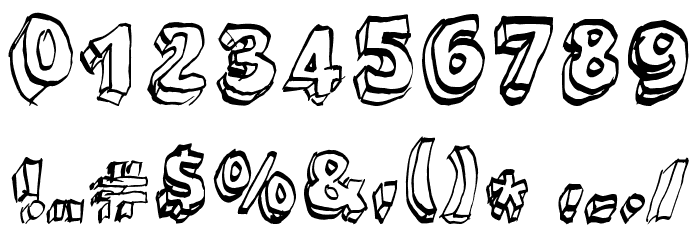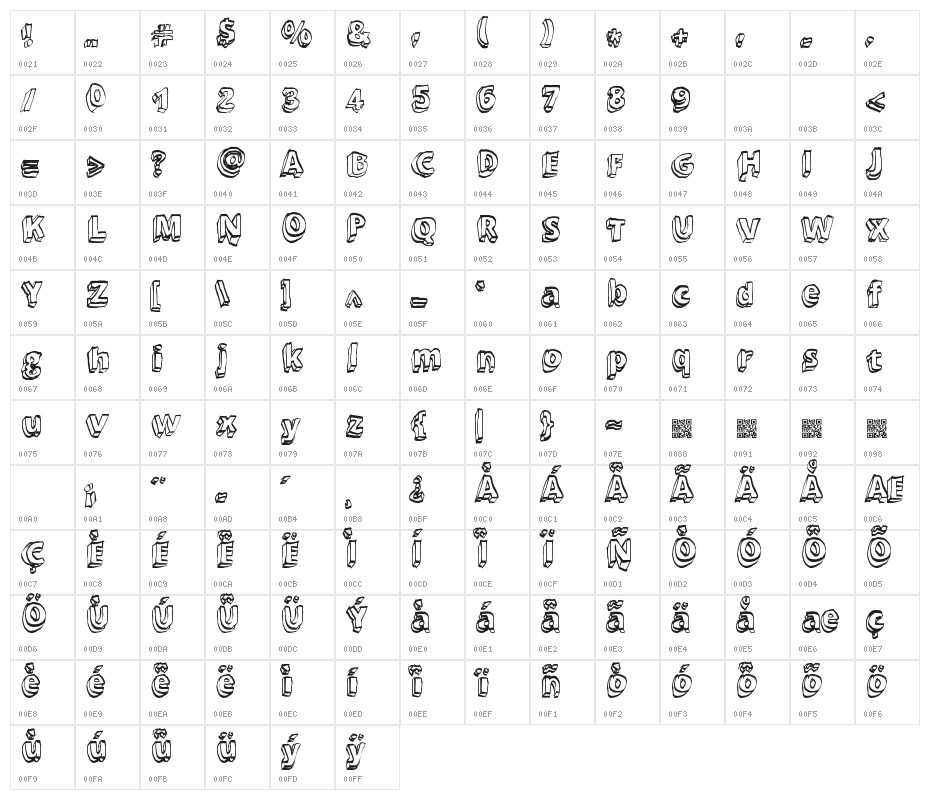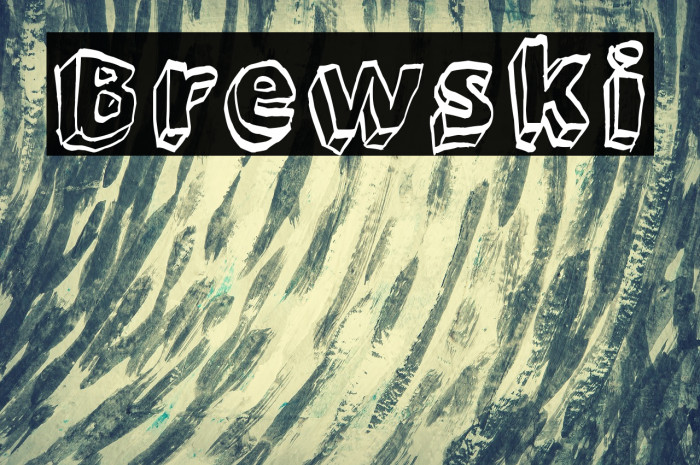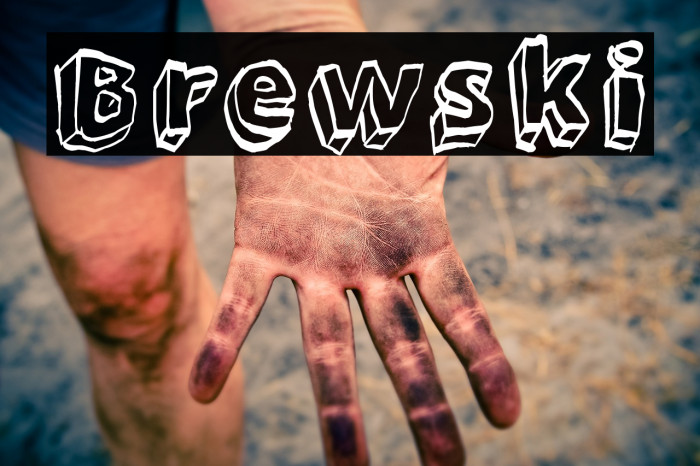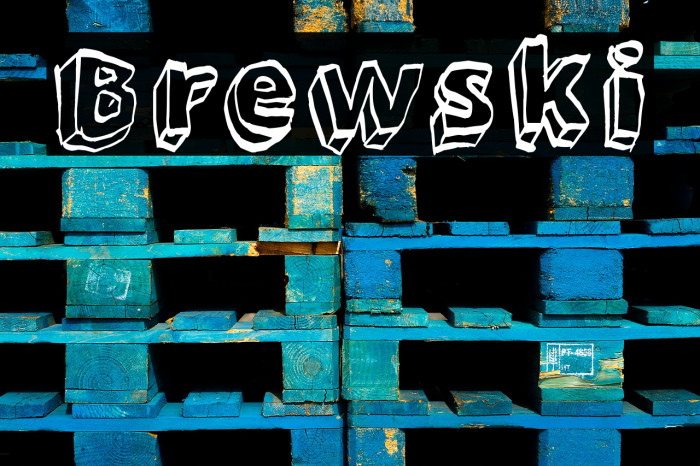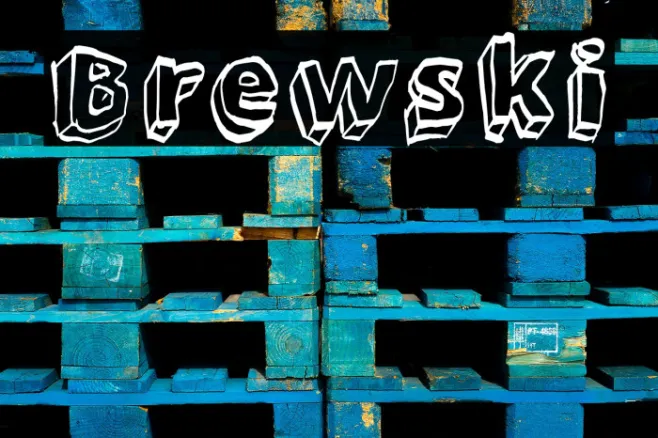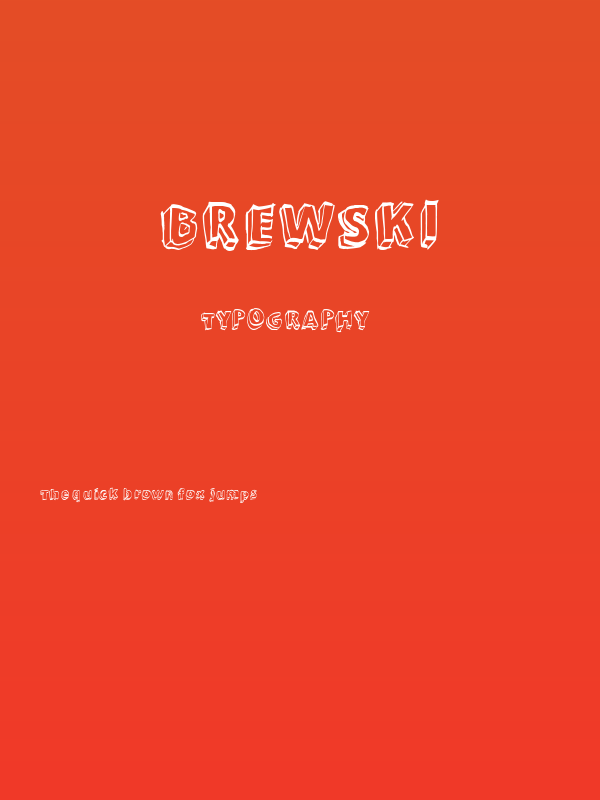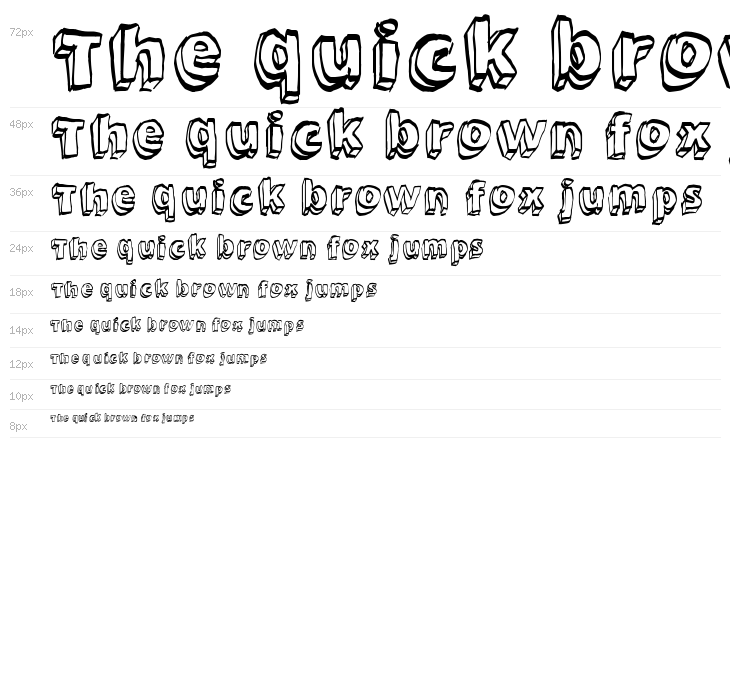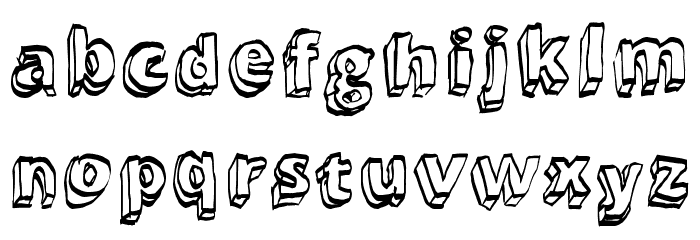
Brewski Font
Brewski Description
This font features a bold, playful, and hand-drawn style with a three-dimensional effect. Each character appears to be sketched with a thick outline, giving it a cartoonish and dynamic appearance. The letters have a consistent width and maintain a uniform height, contributing to a cohesive look. The font's unique style is characterized by its irregular, slightly jagged edges, which add to its informal and whimsical nature. The numbers and special characters follow the same design principles, ensuring a harmonious overall aesthetic. This font is ideal for projects that require a fun and engaging visual impact.
| Overall Style | Playful, Cartoonish, Hand-drawn |
| Proposed Projects | Perfect for comic books, children's books, playful branding, posters, and creative social media graphics. |